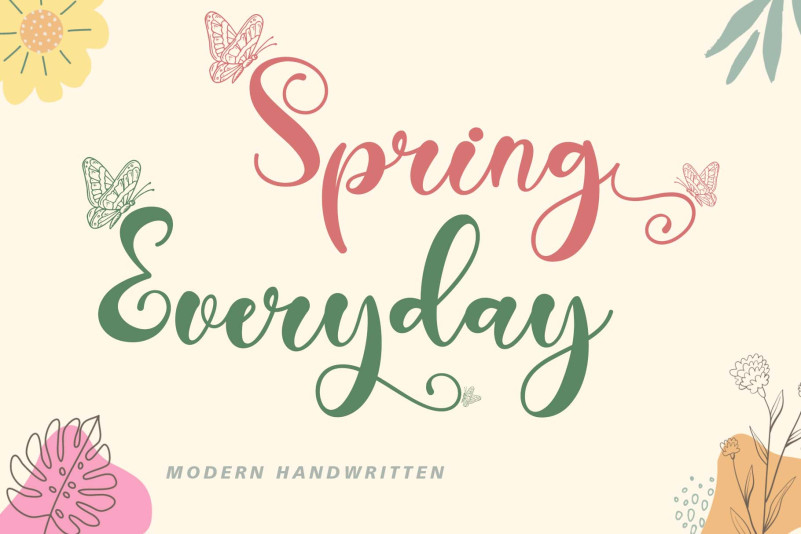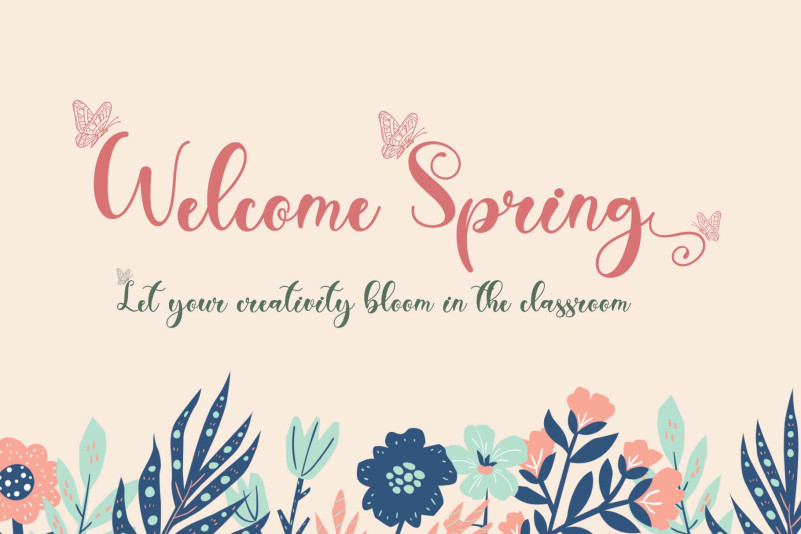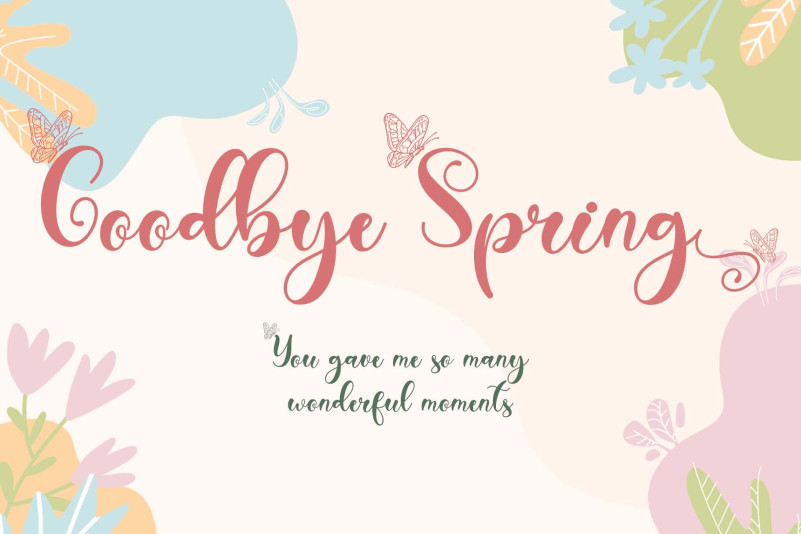
Spring Everyday Font
Spring Everyday Script Font is an exclusive and refined handwritten font. With its elegant strokes and refined details, it adds a touch of luxury to any design project. Keep in mind that the font is PUA encoded, meaning that you can access all delightful glyphs and swashes effortlessly.